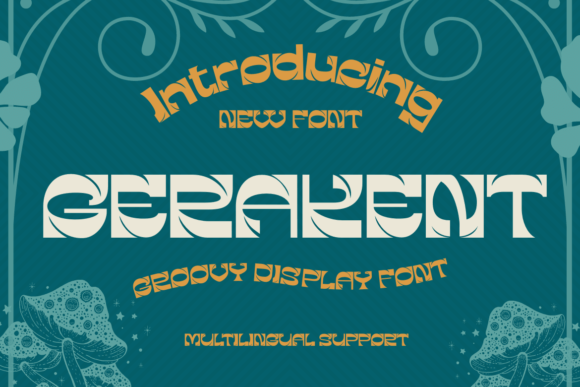
The Perfect Blend of Vintage Charm and Modern Flair
Enter Gerakent Font, a stunning retro-inspired typeface that’s designed to bring your next project to life. With its elegant typography and stylish vintage feel, this versatile font is perfect for branding, product packaging, or even editorial work. Whether you’re a seasoned pro or just starting out, Gerakent Font is an invaluable addition to any designer’s toolkit, offering endless possibilities for creative expression.
Key Features of Gerakent Font
- Unique Characteristics: Features a unique blend of geometric and organic elements, resulting in a modern and elegant design
Gerakent Font Review
Overall, I think Gerakent Font is a decent addition to any font library. It’s got some nice features that make it a solid choice for certain projects.
- Unique aesthetic: Gerakent Font has a distinct, modern feel that sets it apart from more generic fonts.
- Good for headings: The font is well-suited for use in headings and titles, where its bold lines and clean shape can really shine.
- Large character set: Gerakent Font includes a wide range of characters, including Latin, Cyrillic, and Greek alphabets.
- Limited legibility at small sizes: I found that the font can be difficult to read at very small sizes, which may be a problem for certain applications.
- No italic or bold variations: While the font includes regular and bold weights, there are no italic or condensed versions available.
Overall, I’d say Gerakent Font is a solid choice for designers who need a unique font for specific projects. However, it may not be the best choice for projects that require a high level of legibility at small sizes or a wide range of font variations.
Getting the Most Out of Gerakent Font
For the best results with Gerakent Font, use it in conjunction with bold or italic formatting to add emphasis to your text. Experiment with different font sizes and colors to create a visually appealing design.
Gerakent Font is ideal for use in branding and marketing materials, such as business cards, brochures, and posters. It can also be used in digital design projects, such as website headers and social media graphics.